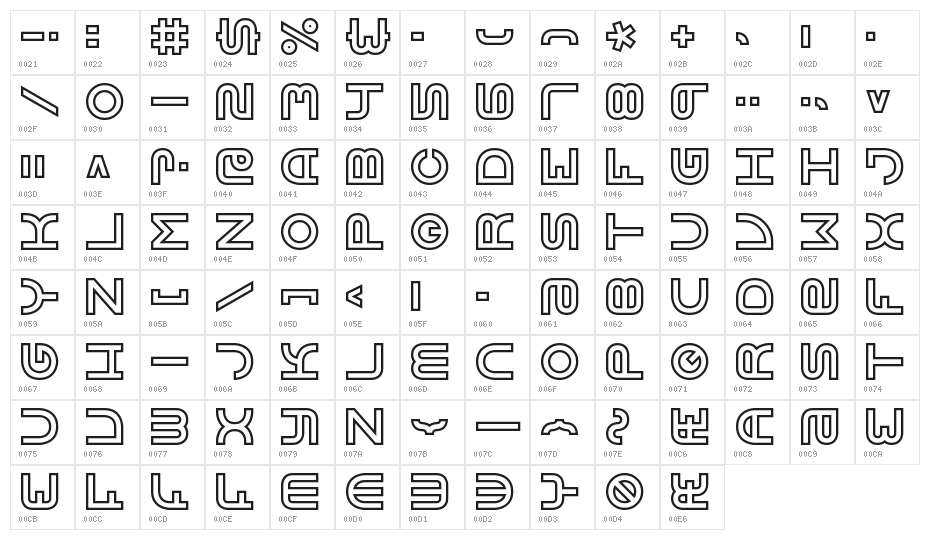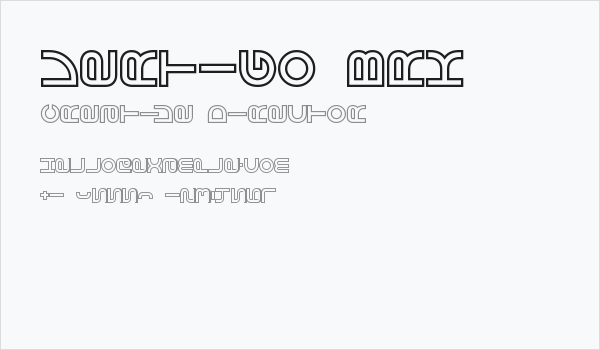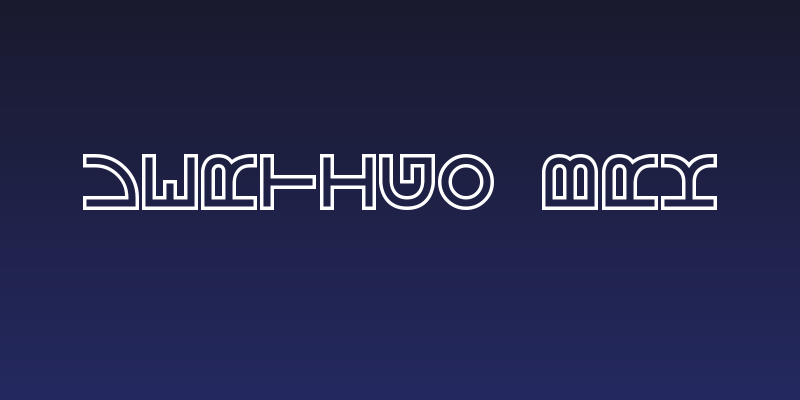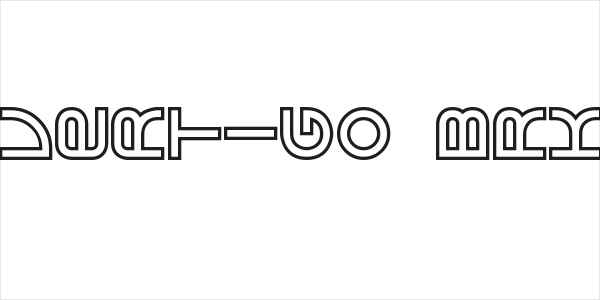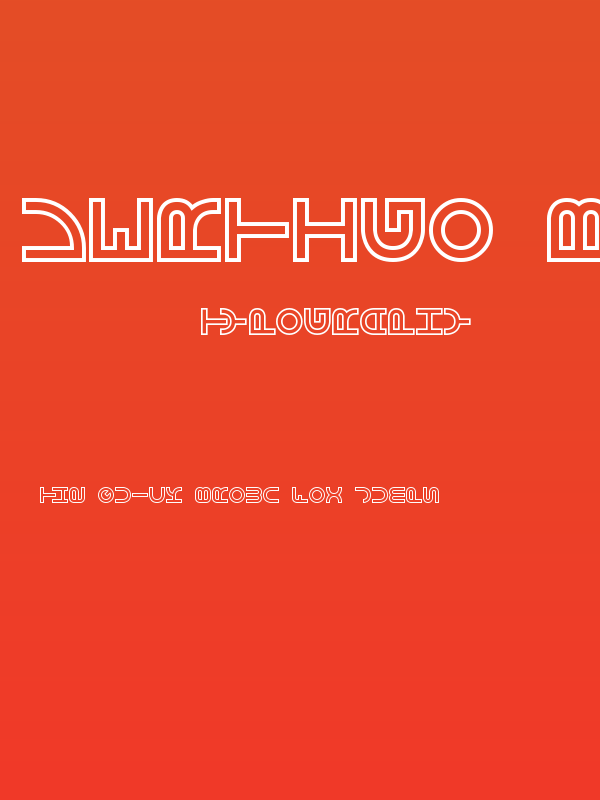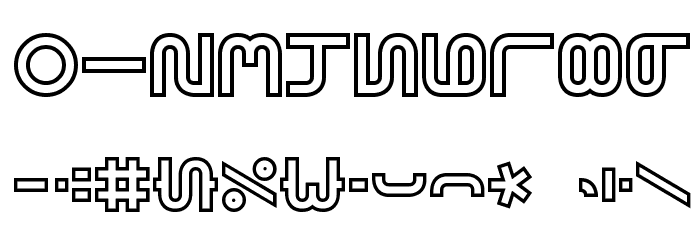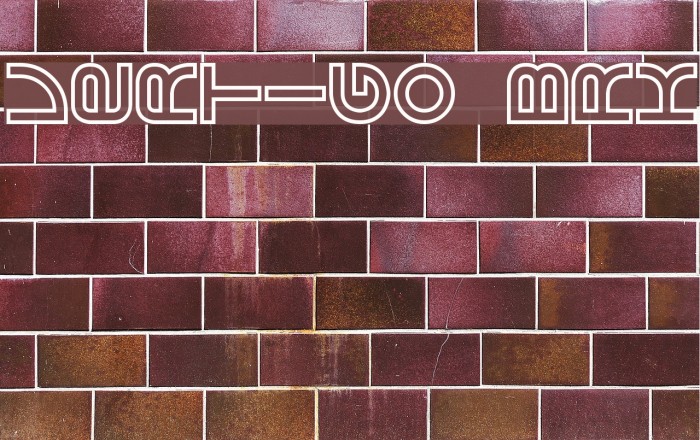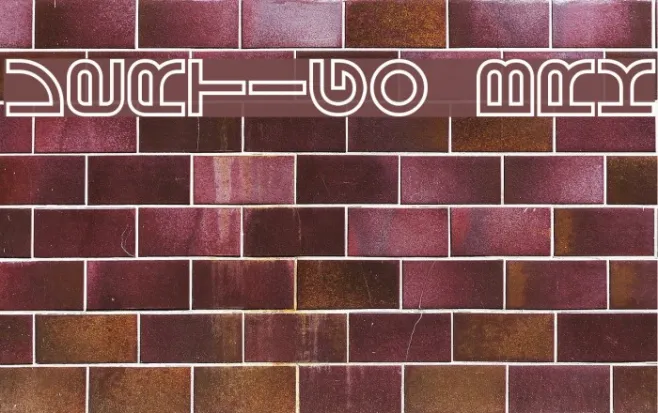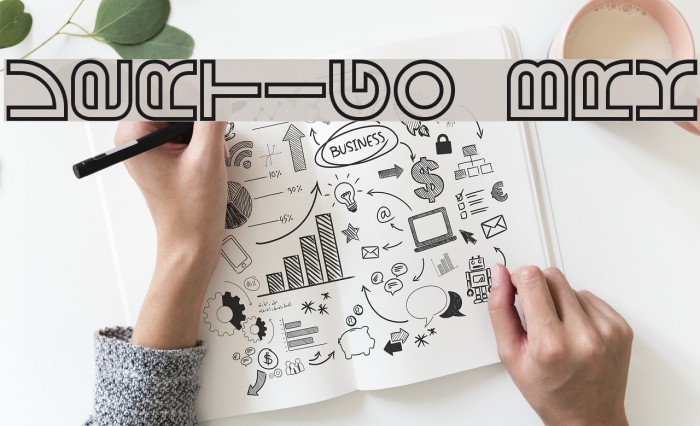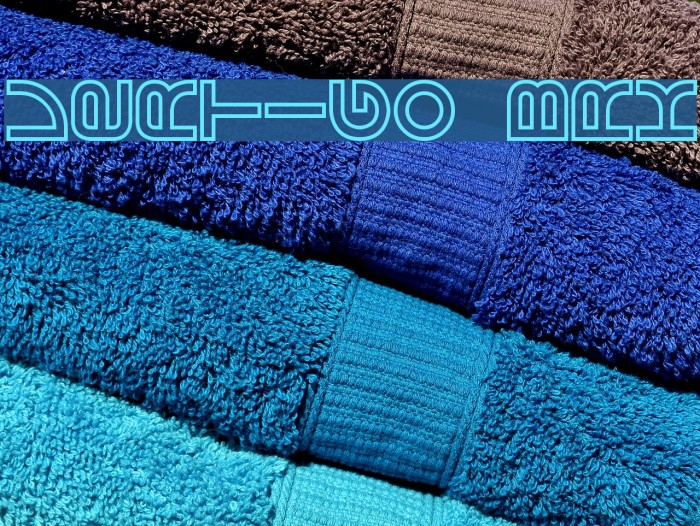
Vertigo BRK Font
Vertigo BRK Description
This font features a unique and futuristic design with geometric shapes and outlines. The characters are constructed with bold, continuous lines that form intricate patterns, giving it a maze-like appearance. The uppercase and lowercase letters maintain a consistent style, with rounded edges and symmetrical forms. The numbers and special characters are equally stylized, integrating seamlessly into the overall design. This font's distinct and modern aesthetic makes it stand out, offering a visually engaging experience.
| Proposed Projects | Ideal for sci-fi themed projects, video game titles, futuristic branding, and creative posters. |